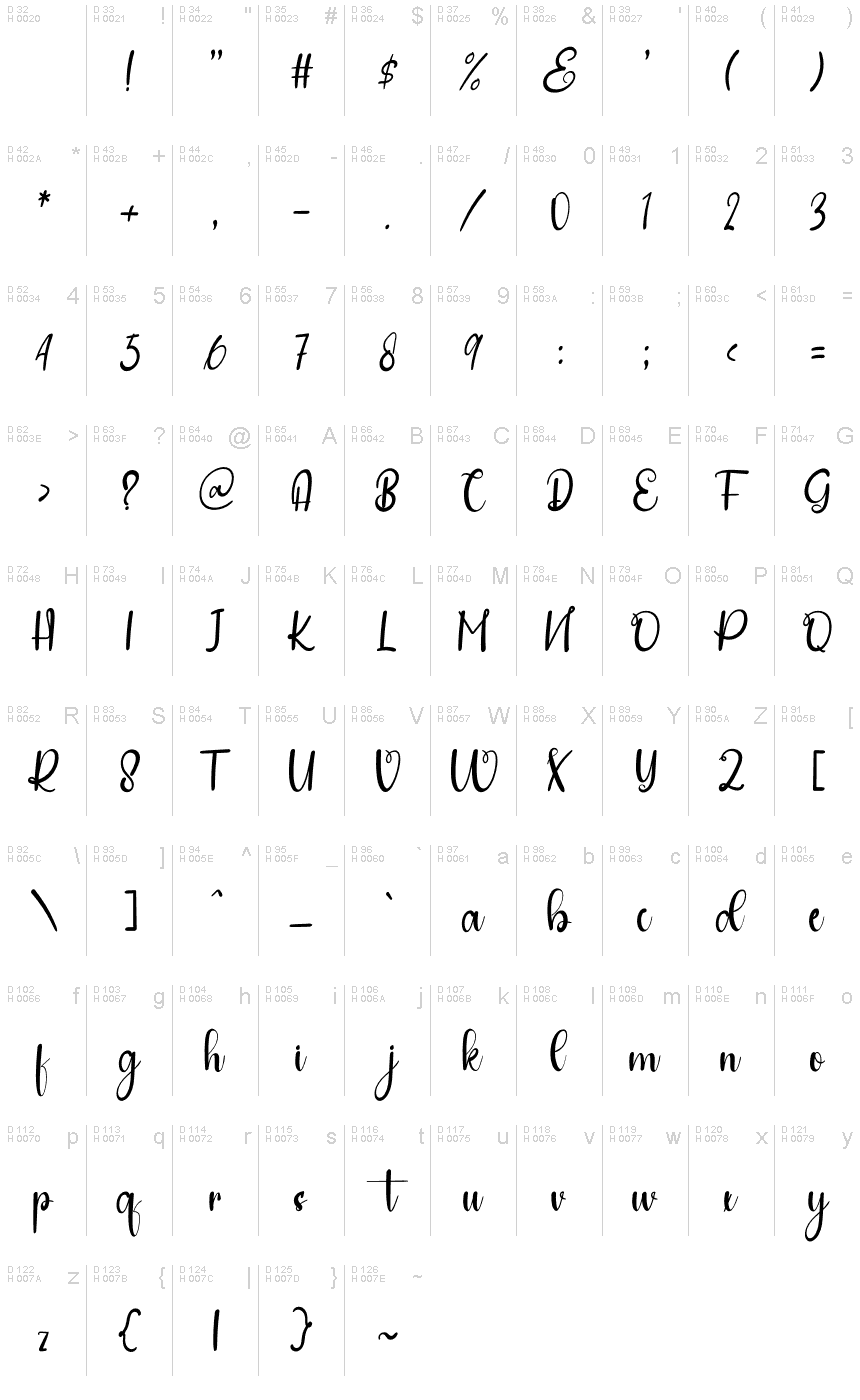
Finishing
Finishing, a delightful semi-light font by PiPi Creative, brings a touch of whimsy to any project with its lovely handwritten style.
Its graceful curves and elegant strokes add charm and character to wedding invitations, love letters, and greeting cards. For branding purposes, Finishing exudes a sense of warmth and friendliness, making it perfect for cozy coffee shops or boutique clothing labels. Its subtle weight is also ideal for children's book illustrations or playful packaging designs.
Let Finishing elevate your creative endeavors with its enchanting handwritten aesthetic.